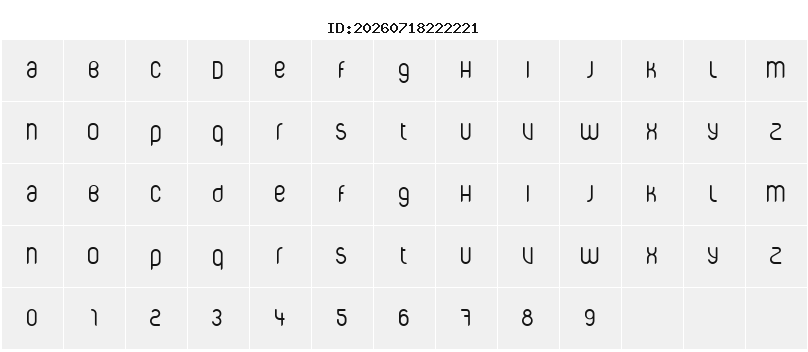
CorpusCare Preview
• Font Name: CorpusCare
• Font Style: Light
• Full Font Name: CorpusCare Light
• Designer: Peter Fritzsche
• Manufacturer: Peter Fritzsche
About CorpusCare.ttf
CorpusCare.ttf is a modern, elegant sans-serif font designed for ultimate readability and visual harmony. Perfect for branding, headlines, web design, and print materials.